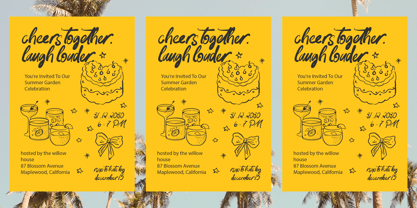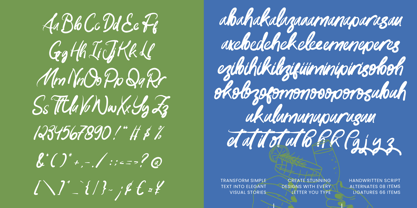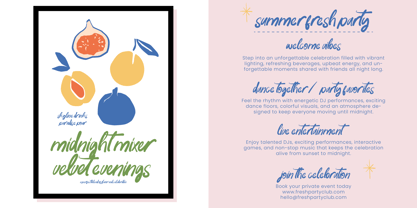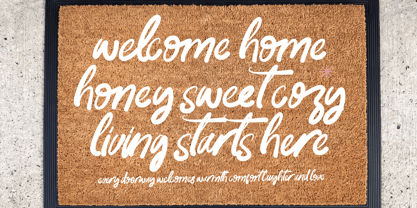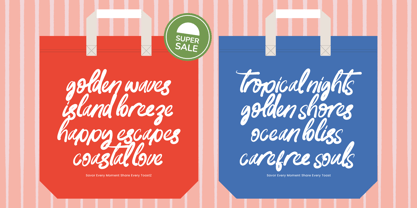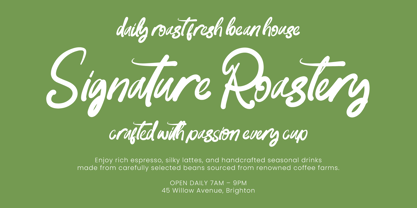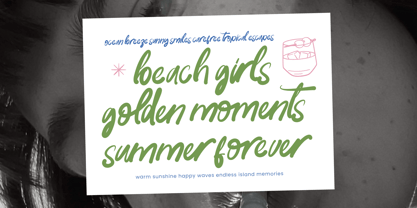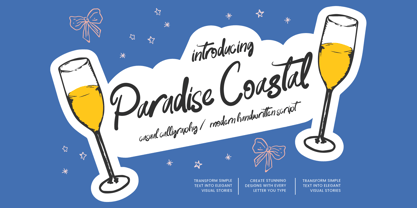
Paradise Coastal
by Amorfa Type
The Paradise Coastal Font Family was designed by Shiddiq Roihan and published by Amorfa Type. Paradise Coastal contains 2 styles and family package options. More about this family
Paradise Coastal is a casual calligraphy and modern handwritten script font designed to capture the warmth, freedom, and effortless charm of coastal living. Combining natural handwriting flow with elegant calligraphic movement, this typeface delivers a relaxed yet refined personality perfect for creative branding and lifestyle-focused design projects.